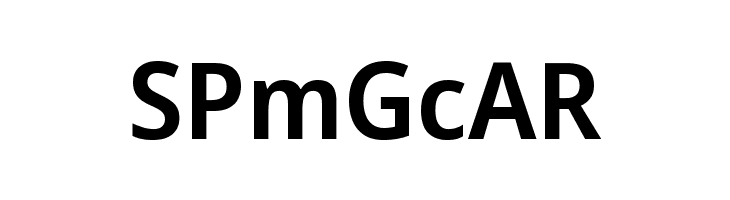
A modern, light, semi-condensed sans-serif font with excellent readability.
A modern, condensed thin font with a clean and minimalist design.
A modern, extra condensed, bold font with a clean and structured appearance.
A bold, condensed sans-serif font with a modern and impactful style.
A modern, semi-bold sans-serif typeface with clean lines and excellent readability.
Semi-condensed sans-serif font for Khmer script.
Minimalist sans-serif font optimized for UI clarity.
A semi-condensed, semi-bold font for the Myanmar script, offering modern and clear readability.